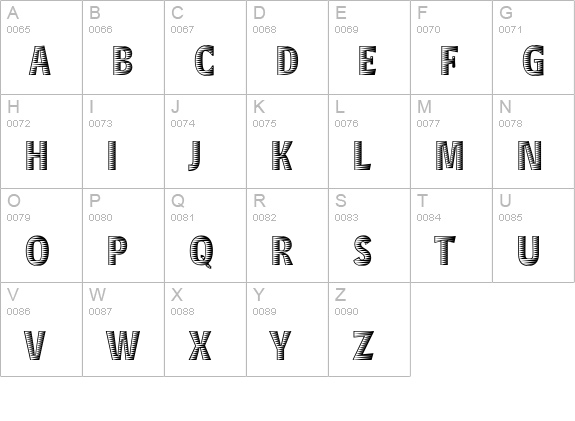
LexiconHeadline-Xylo Font Details
Introducing LexiconHeadline-Xylo, a captivating and versatile font that effortlessly blends elegance with a touch of playfulness. This unique typeface showcases a harmonious balance between modern and classic design elements, making it perfect for a wide range of creative projects. With its clean lines and bold strokes, LexiconHeadline-Xylo commands attention, ensuring your message is delivered with impact. Whether used for headlines, logos, posters, or branding materials, this font captures the essence of sophistication while injecting a sense of excitement and energy. One of the most remarkable aspects of LexiconHeadline-Xylo is that it is free. Yes, you read that right - this extraordinary font is freely available to download at FontsMarket.com. Now you can add a touch of professionalism and creativity to your designs without breaking the bank. Designed with utmost precision, LexiconHeadline-Xylo offers a wide range of glyphs and characters, allowing you to express your ideas with complete freedom and flexibility. From uppercase and lowercase letters to punctuation marks and numerals, this font leaves no stone unturned when it comes to fulfilling your typographic needs. The versatility of LexiconHeadline-Xylo truly knows no bounds. With its ability to adapt seamlessly to various design contexts, be it print or digital, this font empowers you to create captivating visuals that leave a lasting impression. Whether you are a graphic designer, a digital artist, or a creative enthusiast, LexiconHeadline-Xylo is a must-have font in your collection. Download it for free at FontsMarket.com today and let your imagination run wild as you explore the endless possibilities this font has to offer. Elevate your designs to new heights with LexiconHeadline-Xylo, the font that effortlessly combines elegance and playfulness.